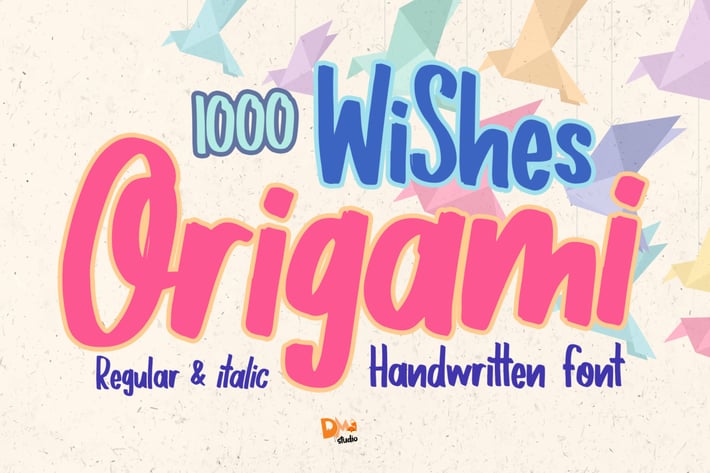
1000 Wishes Origami - Handwritten Font
1000 Wishes Origami
1000 Wishes Origami is a casual handwritten font with rough texture. Contain two versions, Regular and Italic.
- Numeric
- Symbols
- Regular and Italic Version